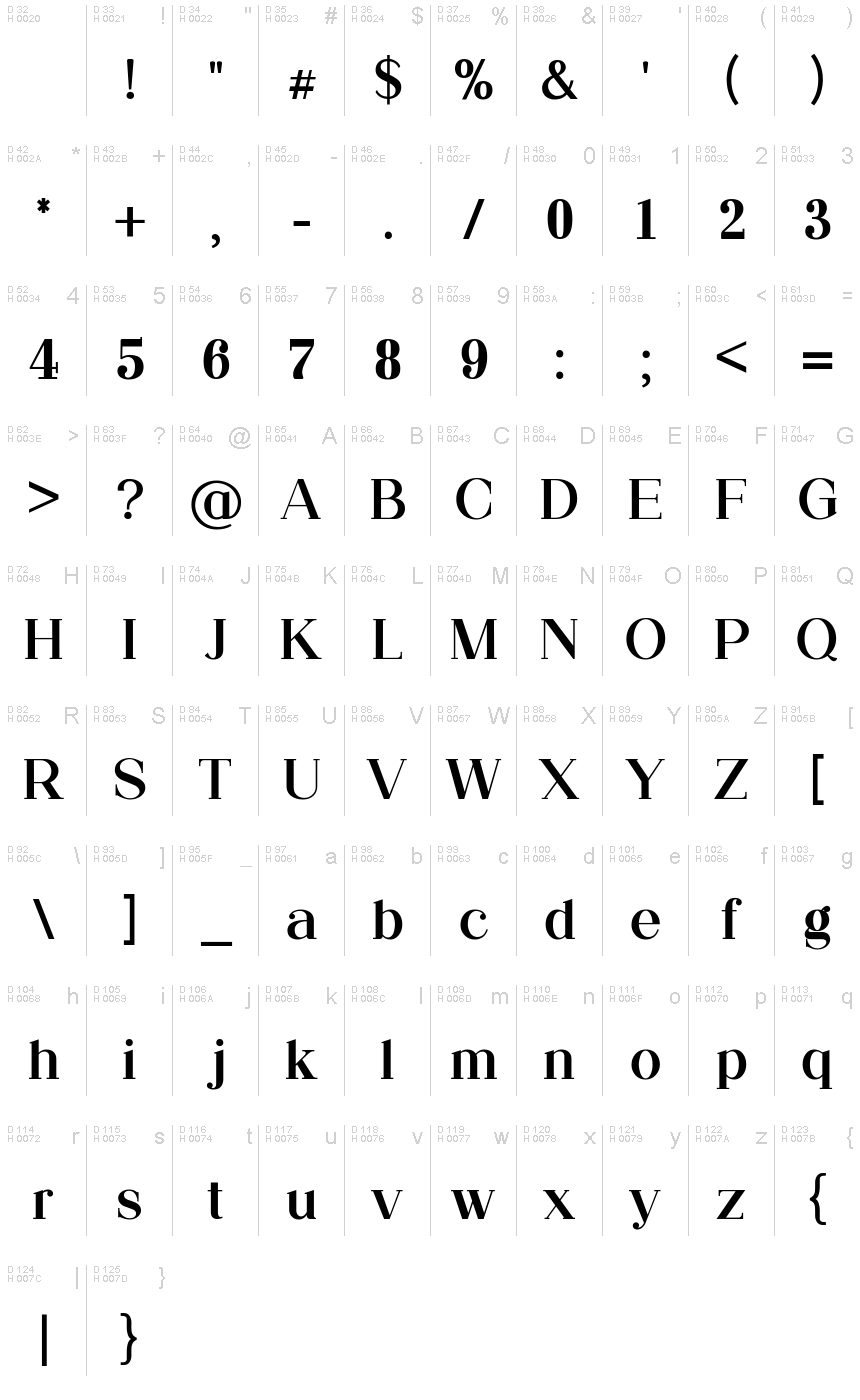
Roadblock-Regular
Roadblock, a captivating serif font designed by UI Creative, exudes a timeless elegance with its distinctive strokes and subtle curves. This font's architectural aesthetic evokes a sense of solidity and stability, making it a compelling choice for headings, titles, and prominent text elements. Its clean, refined lines and balanced proportions lend an air of sophistication, making Roadblock well-suited for a variety of applications, from editorial design to branding and packaging.
Roadblock's versatility allows it to seamlessly integrate into diverse design contexts. Its strong presence and legibility make it an excellent option for attention-grabbing headlines, while its refined qualities also render it well-suited for formal communications, such as invitations, announcements, and financial reports. Furthermore, the font's adaptability extends to digital interfaces, where its crisp rendering and robust character set ensure a polished, professional appearance across various screen sizes and devices.